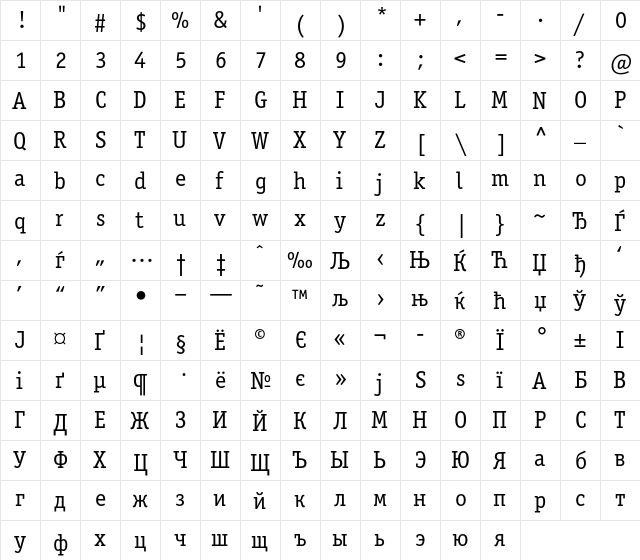
OfficinaSerifC Regular Font Preview
OfficinaSerifC Regular
OfficinaSerifC Regular Font Details
Design Context for OfficinaSerifC Typeface
OfficinaSerifC carries the refined structure of traditional serif typography, with bracketed terminals and considered proportions that communicate credibility and craft.